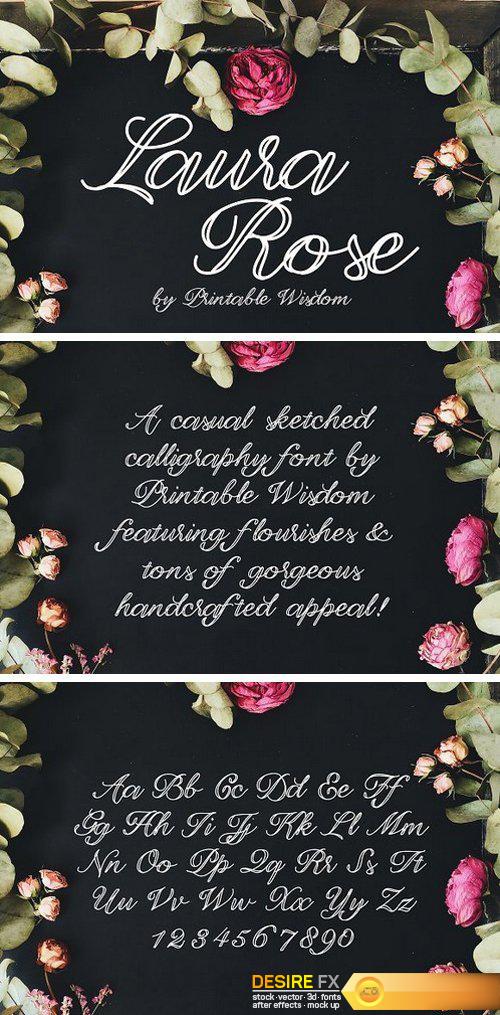
Share Read on Mobile Enter Reading Mode CM – Laura Rose Font 1729689 Posted on November 28, 2017 by Quartermaster Fonts TTF | 38 KB RAR This sketched calligraphy font was completely hand written with tons of character and unique style FREE DOWNLOAD FROM SYNCS.ONLINE (Visited 59 times, 1 visits today) SCAN THIS QR CODE WITH YOUR PHONE